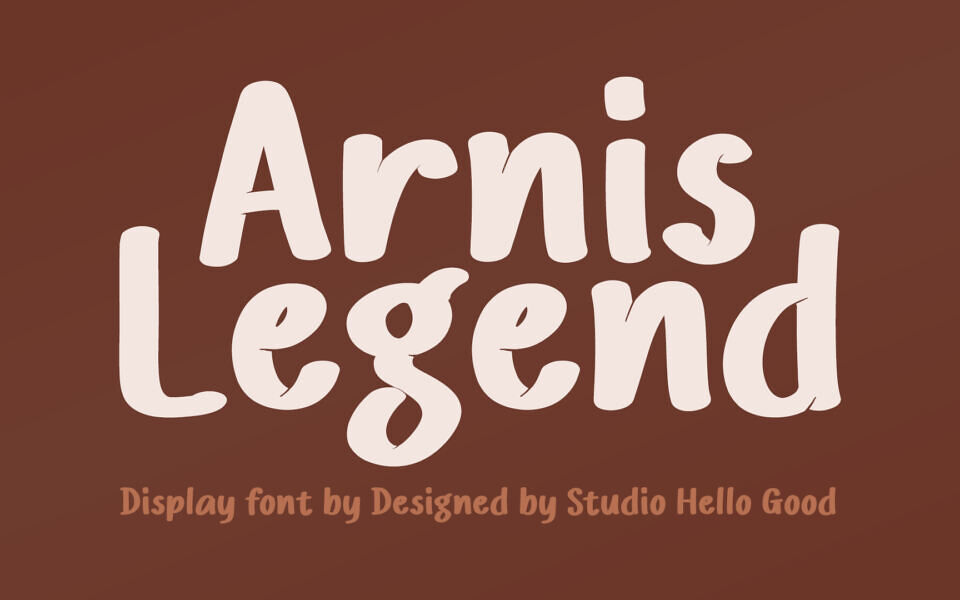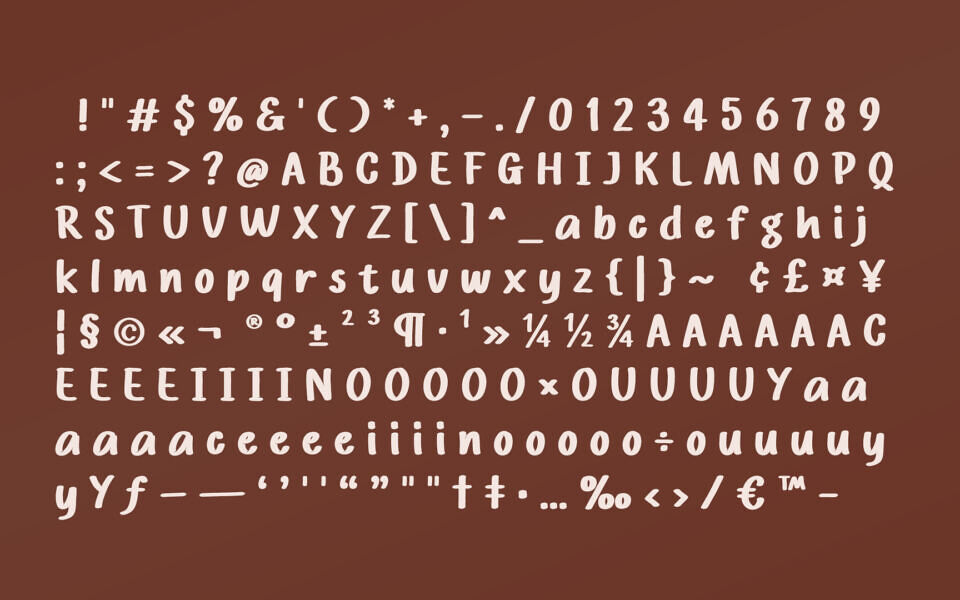
Arnis Legend is a charming handwritten font with a playful, friendly personality. Its smooth strokes and casual letterforms create a warm, approachable look that feels both creative and authentic.
Perfect for invitations, greeting cards, branding, social media graphics, and craft projects, it adds a cheerful handmade touch to any design. With its cute and versatile style, Arnis Legend helps bring personality and warmth to titles, quotes, and decorative text.